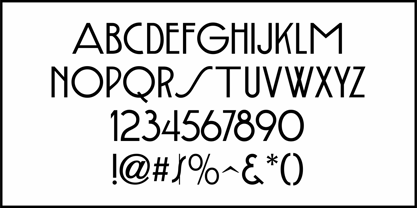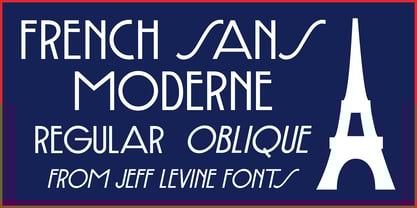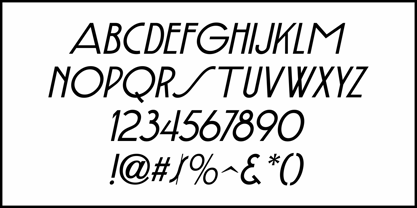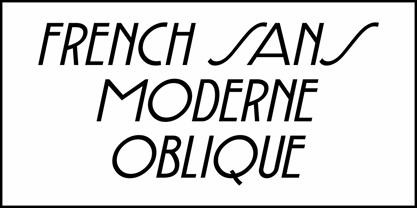
French Sans Moderne JNL
by Jeff Levine
The French Sans Moderne JNL Font Family was designed by Jeff Levine and published by Jeff Levine. French Sans Moderne JNL contains 2 styles and family package options.
The vintage French lettering book "32 Alphabets Modernes" offered up an Art Deco sans seif alphabet with a number of interesting character shapes due to its hand lettered design.
This is now available as French Sans Moderne JNL in both regular and oblique versions.